Letters from Sweden
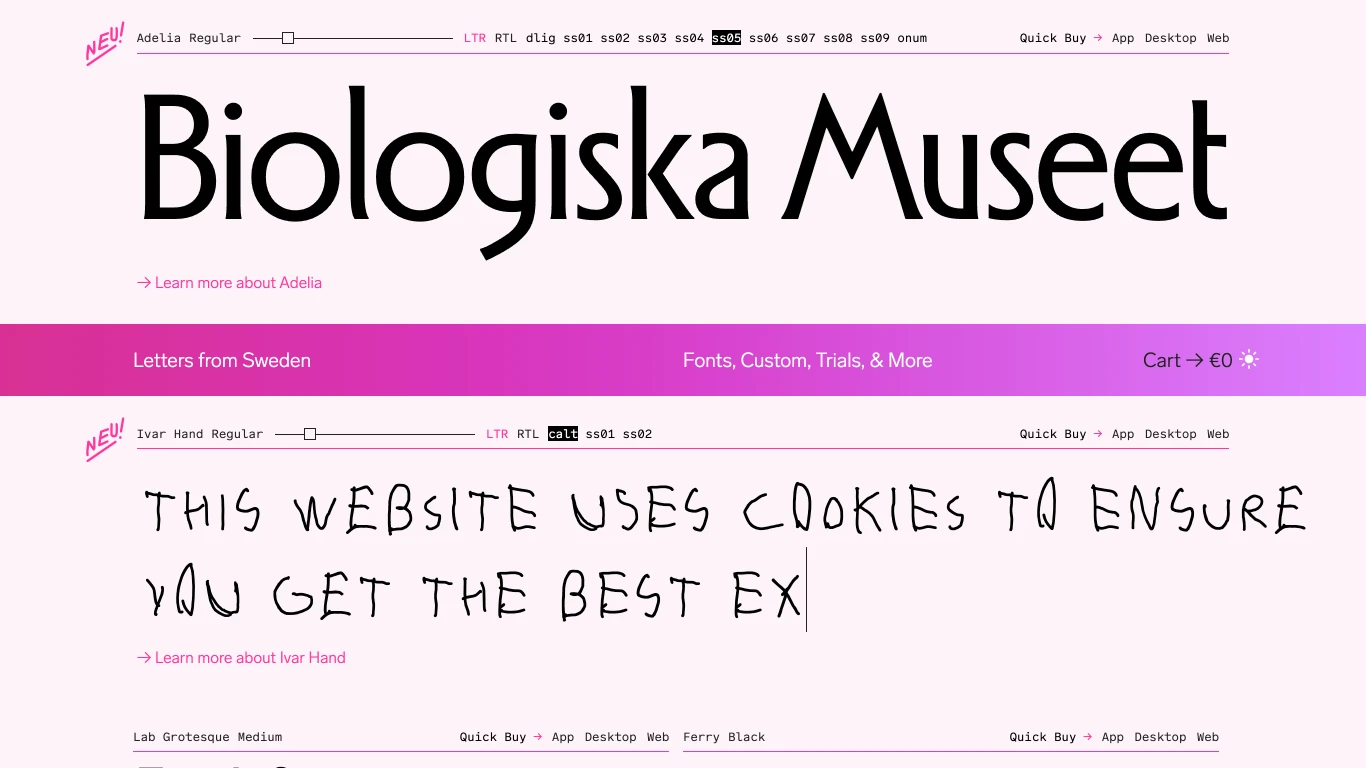
Sweden
Letters from Sweden is a Stockholm-based type foundry founded in 2011 by self-taught designer Göran Söderström. The studio creates both retail and custom typefaces, emphasizing clear communication and distinctive character. Notable typefaces include Ivar (a versatile serif family), Lab Grotesque (a utilitarian sans), Rund (a geometric sans with concave terminals), and Alfred Sans, developed for the Nobel Prize in collaboration with Stockholm Design Lab. citeturn0search1 Their client list features prominent names such as Acne Studios, Gucci, Ableton, The Nobel Prize, and the City of Rotterdam. citeturn0search0 In 2024, they released Svenskt Tenn Display, a custom serif inspired by archival materials from the Swedish design house Svenskt Tenn. citeturn0search7 Letters from Sweden’s work is recognized for its functional elegance and has been featured in publications like Slanted Magazine.